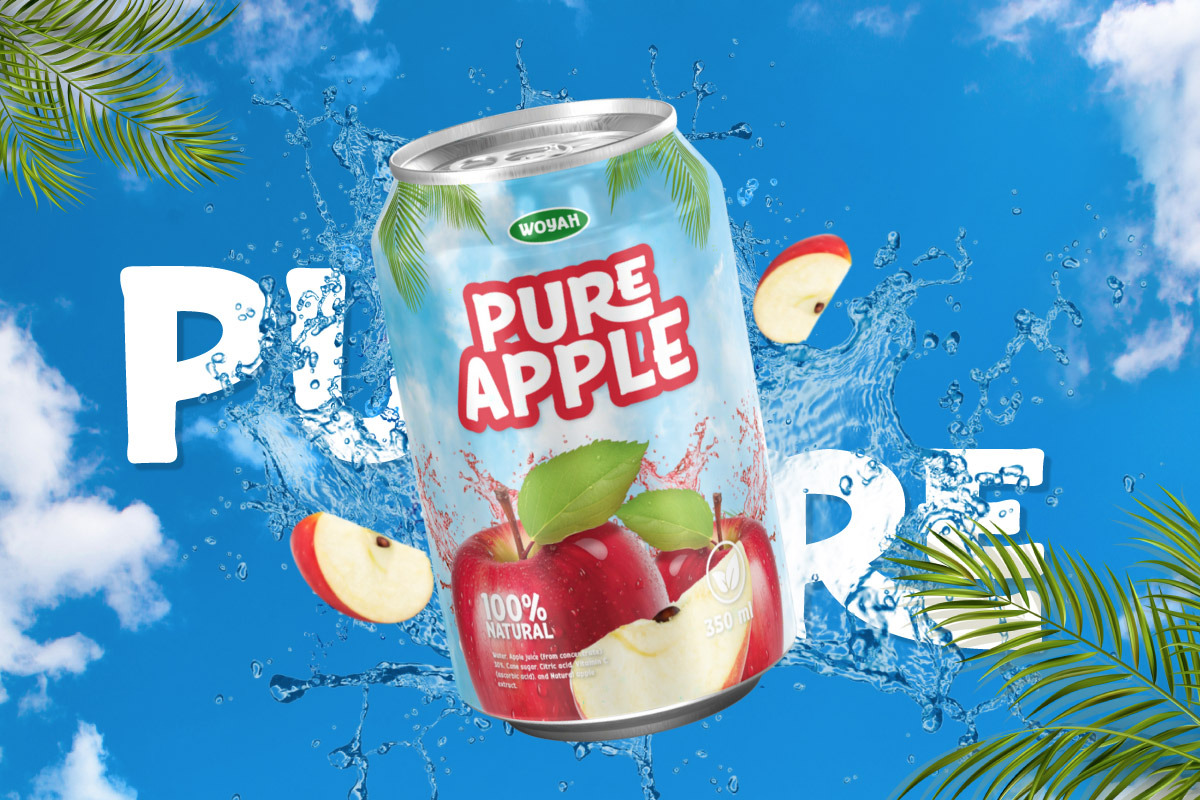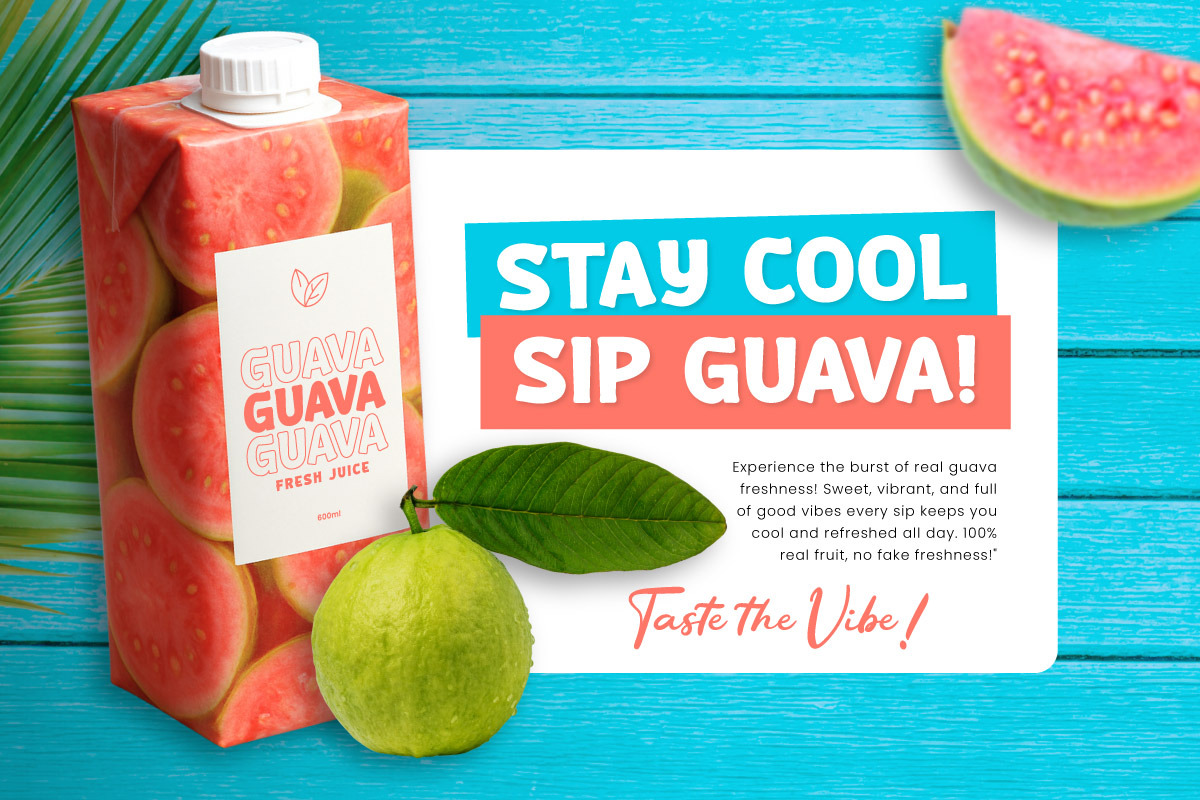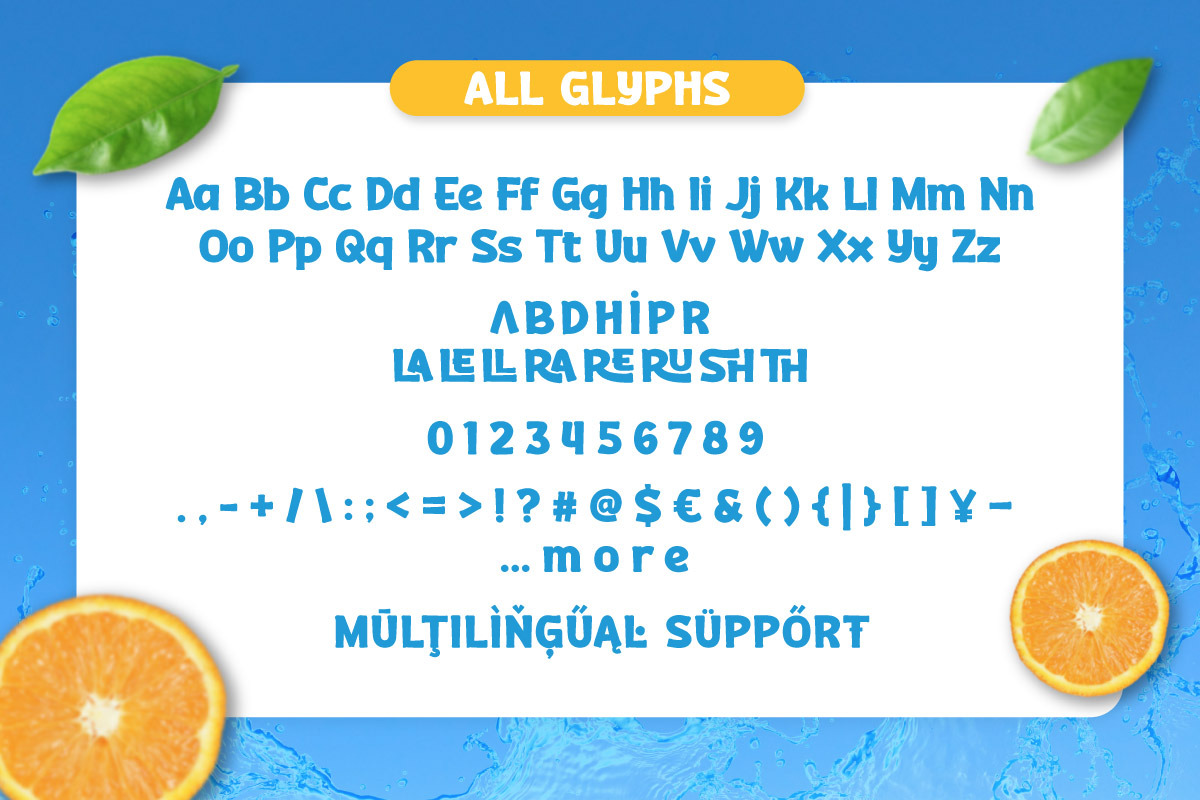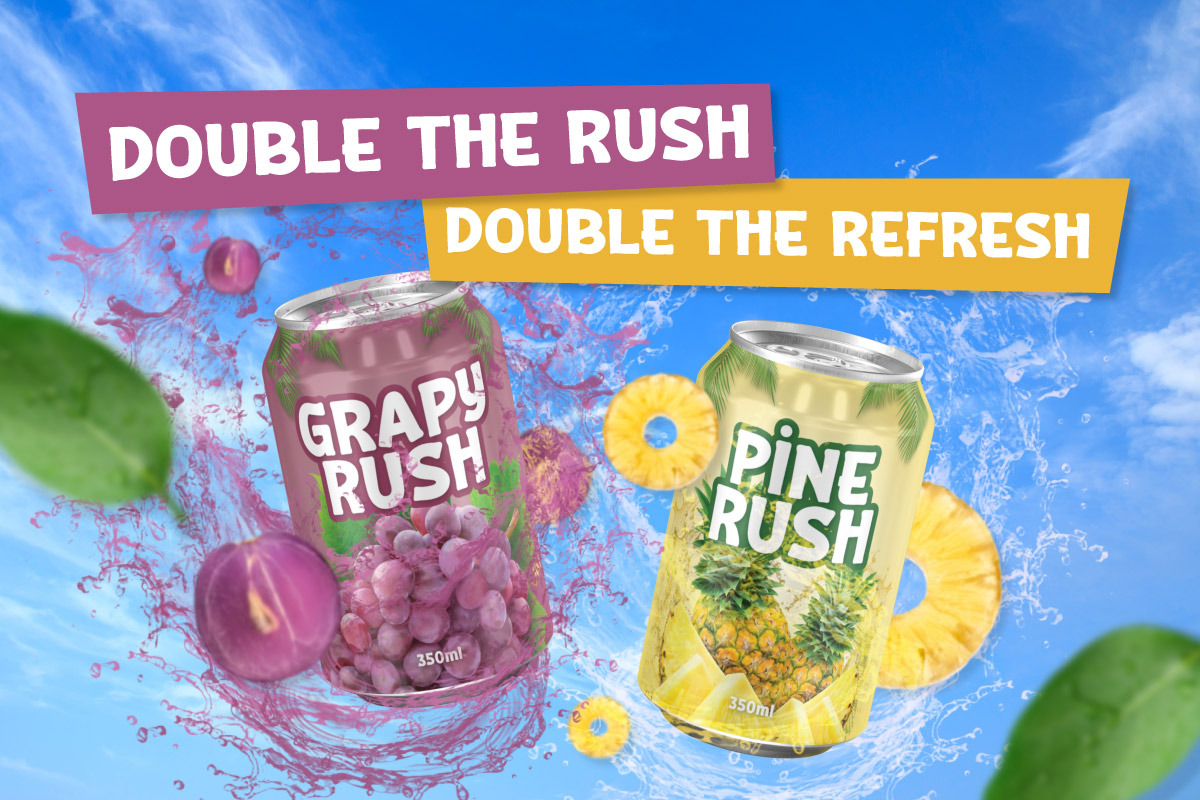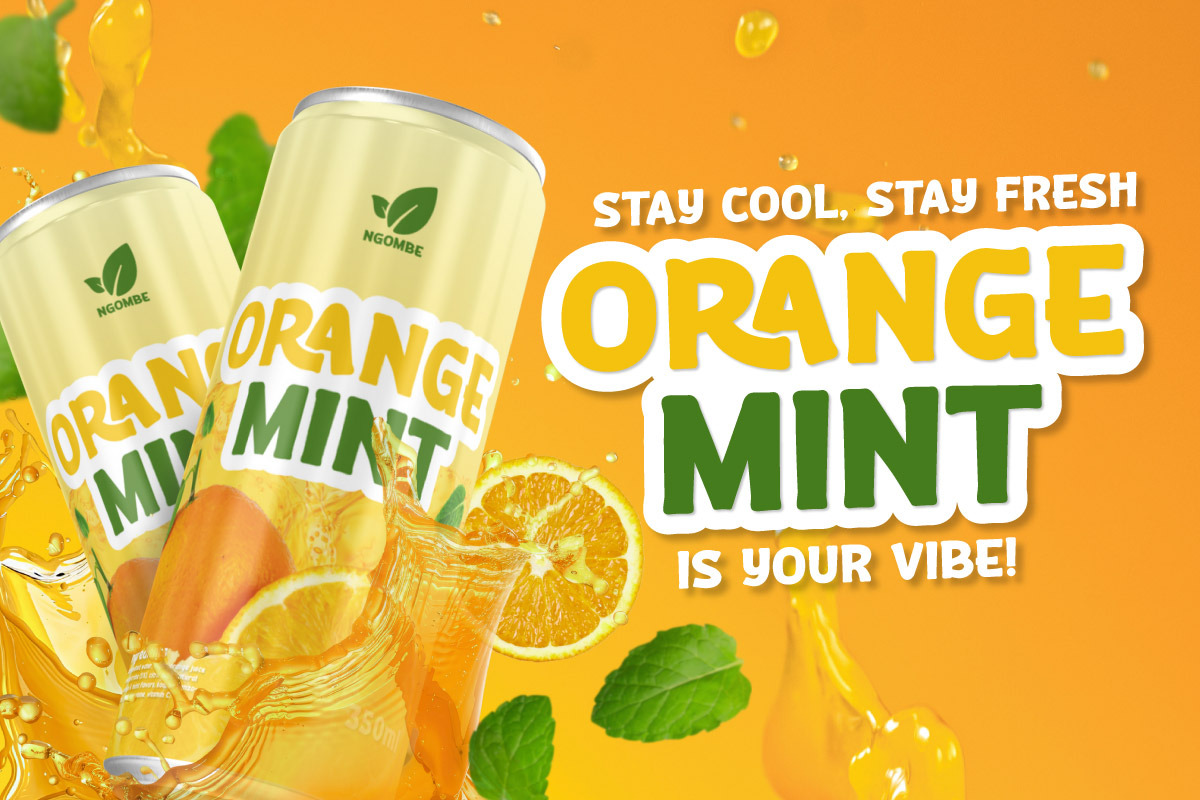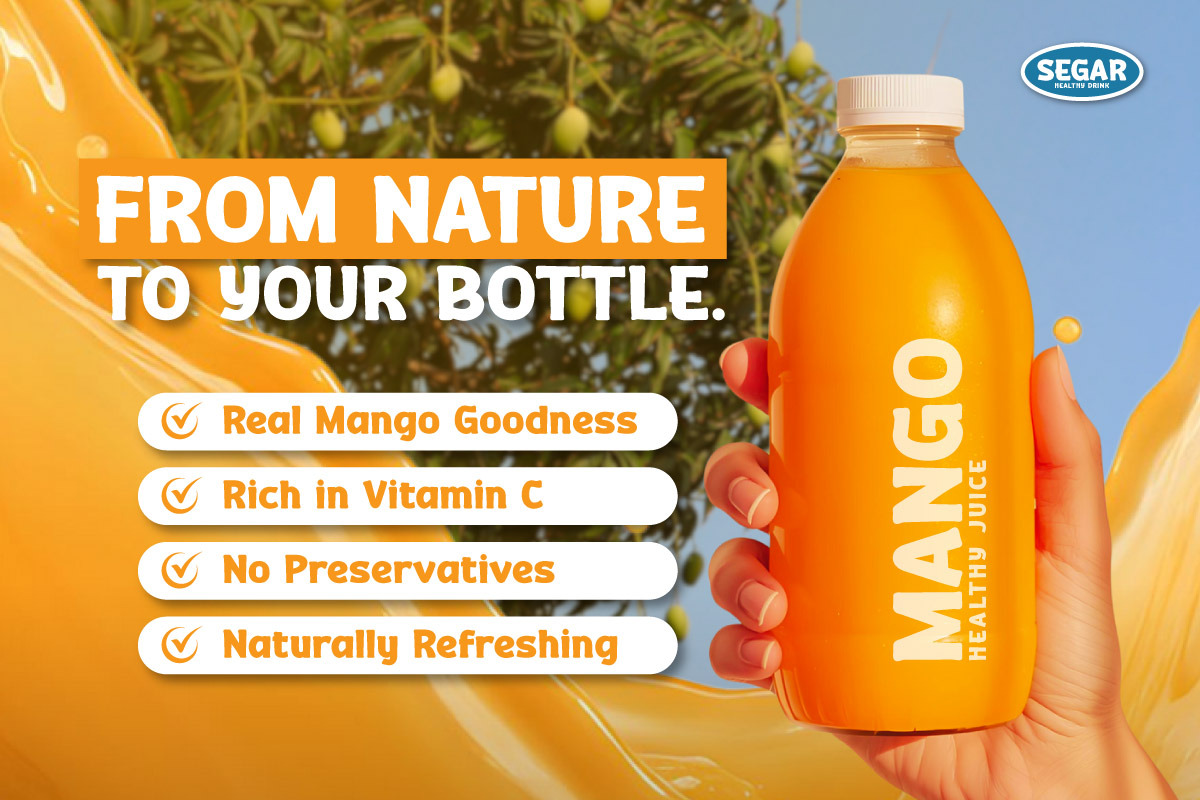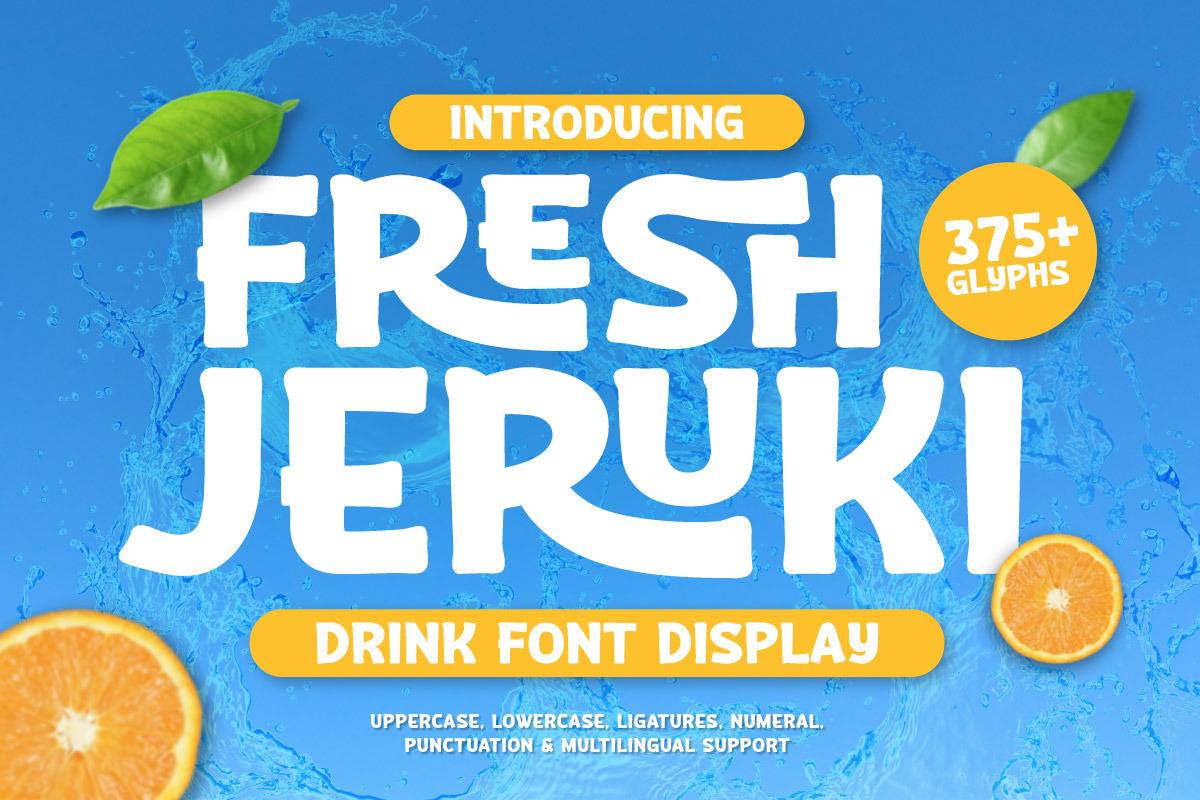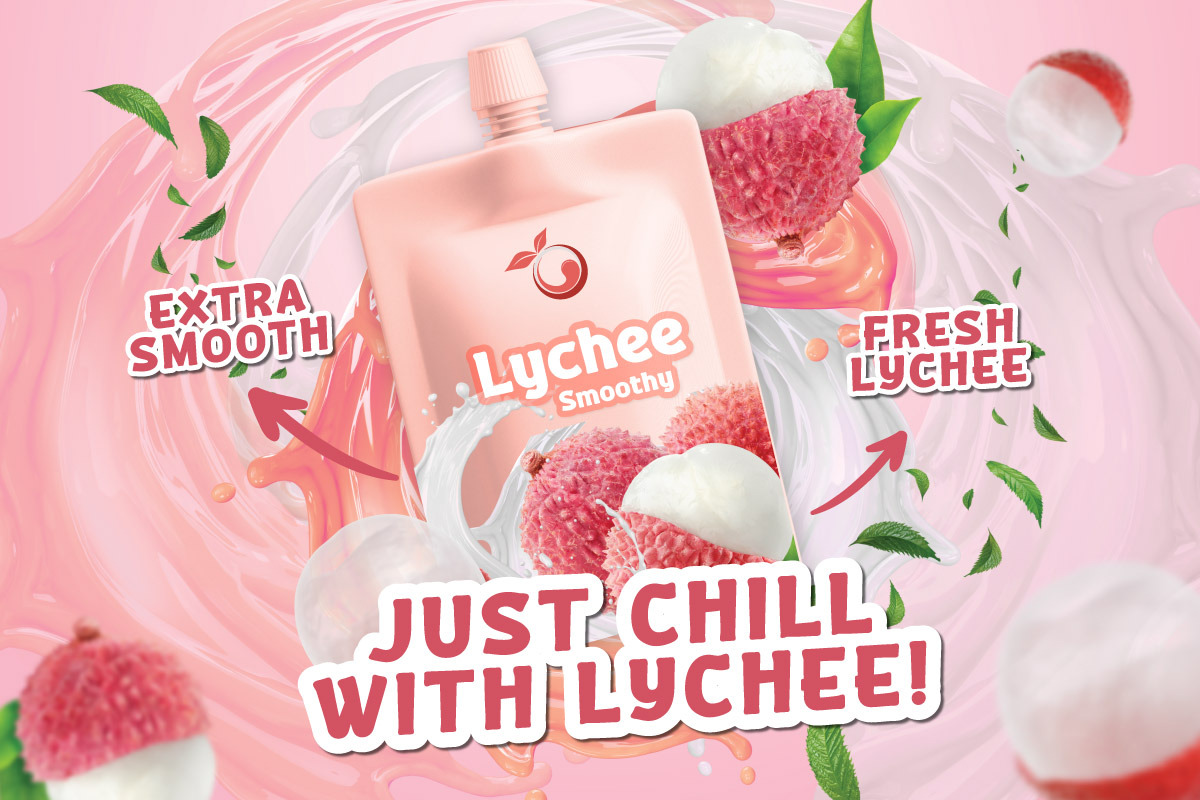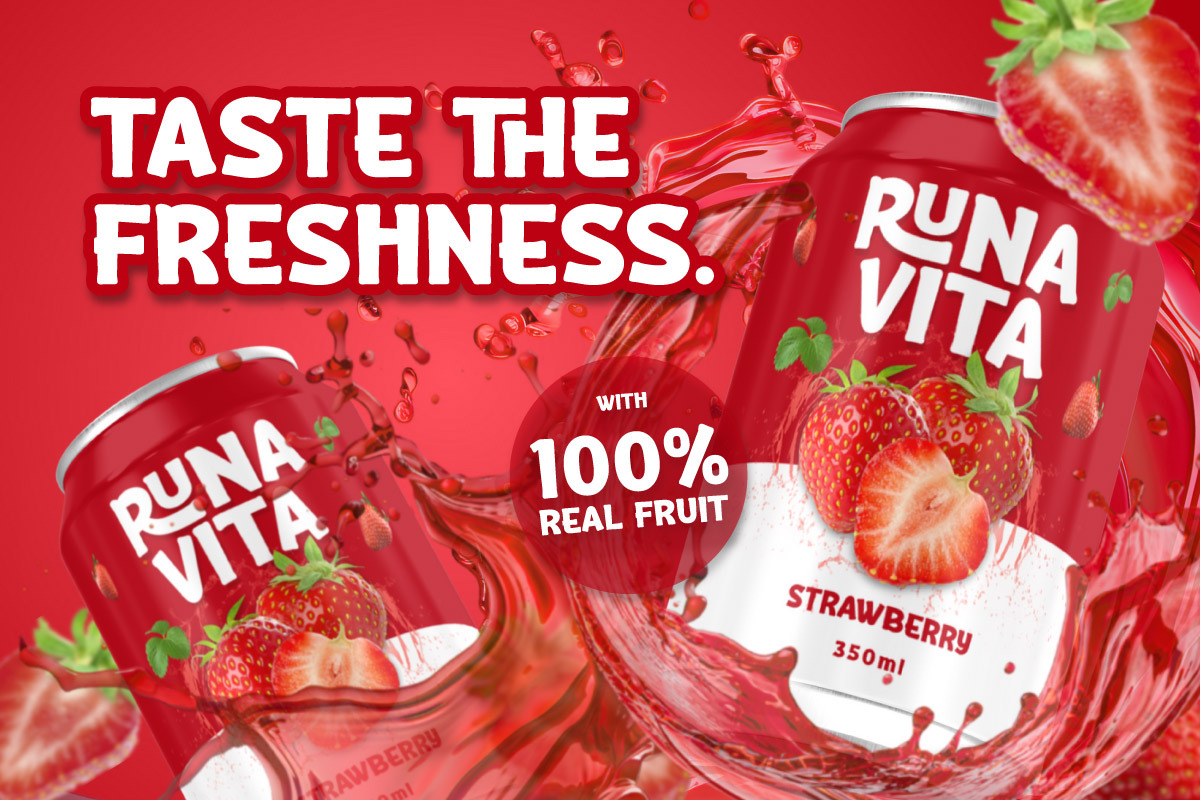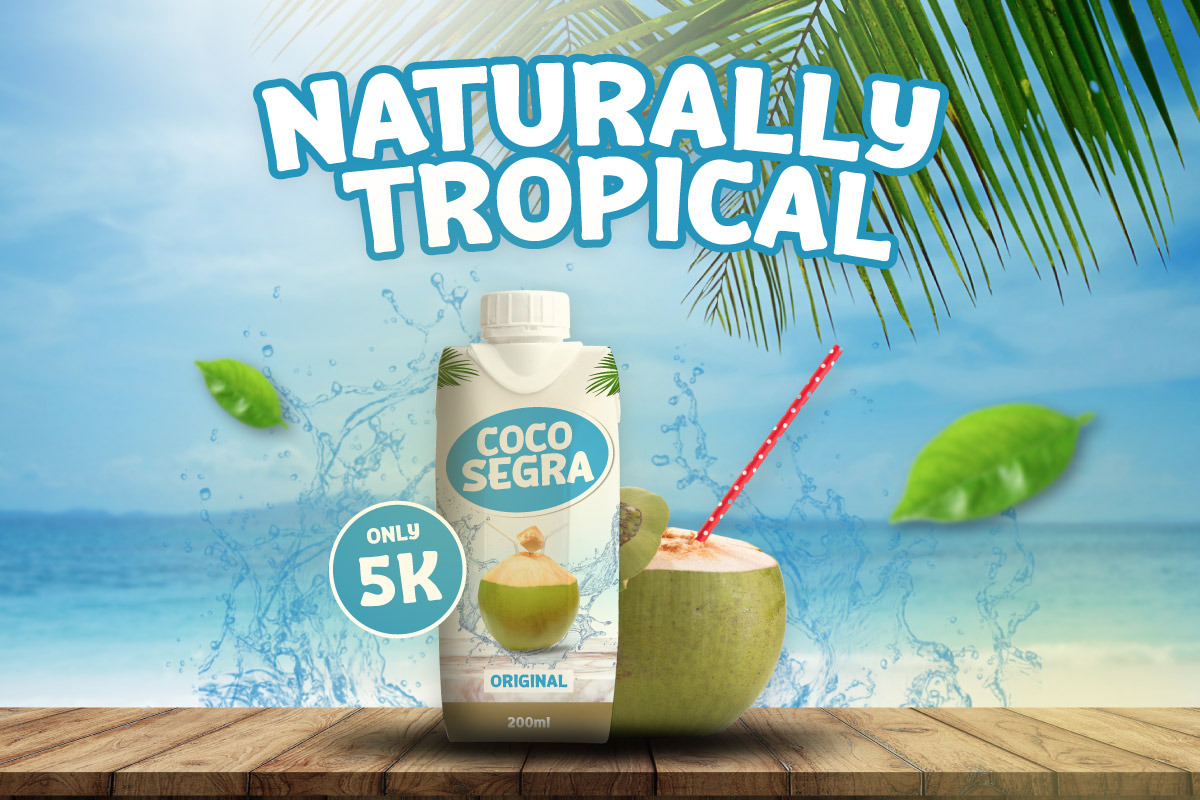
Fresh Jeruki - Drink Font
Fresh Jeruki – Drink Font Display is a lively and juicy typeface bursting with playful energy and tropical freshness. Inspired by the vibrant colors and cheerful spirit of summer beverages, this font brings a sense of fun and positivity to every design. Its rounded, fluid letterforms capture the look of splashing water and fresh citrus, making it perfect for designs that radiate freshness and happiness.
Packed with 375+ glyphs, including uppercase, lowercase, ligatures, numerals, punctuation, and multilingual support, Fresh Jeruki gives designers the flexibility to craft eye-catching titles and fun compositions. The bouncy rhythm and smooth curves make it ideal for projects that need to feel dynamic, lighthearted, and refreshing.
Fresh Jeruki works perfectly for beverage packaging, fruit product branding, posters, children’s book titles, summer campaigns, or any creative project that celebrates freshness and joy. It’s a playful font that turns every word into a splash of energy and creativity.
- Multilingual Support: Fully supports 85+ languages, including: Afrikaans, Albanian, Asu, Basque, Bemba, Bena, Breton, Catalan, Chiga, Cornish, Croatian, Czech, Danish, Dutch, Embu, English, Esperanto, Estonian, Filipino, Finnish, French, Friulian, Galician, Gusii, Hungarian, Indonesian, Irish, Italian, Kabuverdianu, Kalenjin, Kamba, Kikuyu, Kinyarwanda, Latvian, Lithuanian, Lower Sorbian, Luo, Luxembourgish, Luyia, Machame, Makhuwa-Meetto, Makonde, Malagasy, Maltese, Manx, Meru, Morisyen, North Ndebele, Norwegian Bokmål, Norwegian Nynorsk, Nyankole, Oromo, Polish, Portuguese, Quechua, Romanian, Romansh, Rombo, Rundi, Rwa, Samburu, Sango, Sangu, Scottish Gaelic, Sena, Serbian, Shambala, Shona, Slovak, Slovenian, Soga, Somali, Spanish, Swahili, Swedish, Swiss German, Taita, Teso, Turkish, Upper Sorbian, Uzbek (Latin), Volapük, Vunjo, Walser, Zulu.